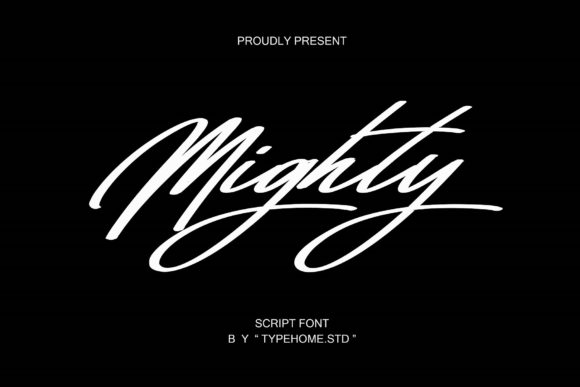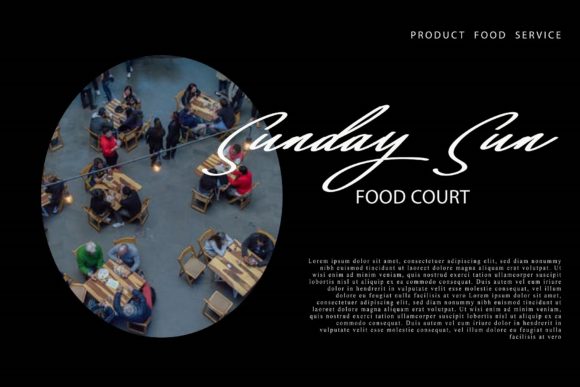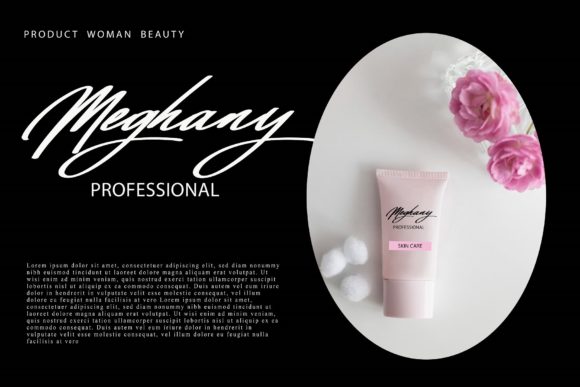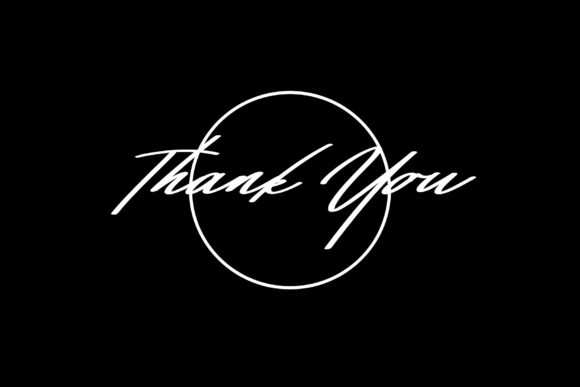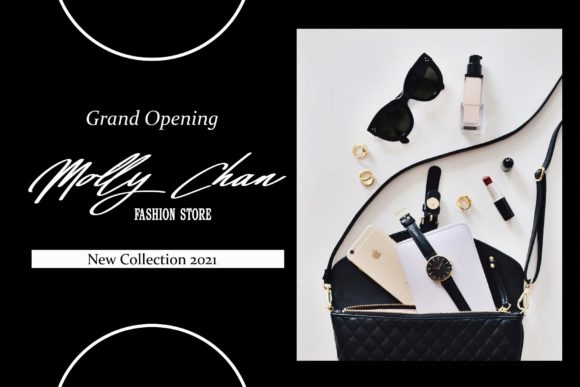
About Mighty Script Font
Mighty Script is a flowing, elegant and adaptable script font. This versatile script font has a wide spectrum of applications ranging from greeting cards to headlines and is guaranteed to add a romantic feel to your next project.